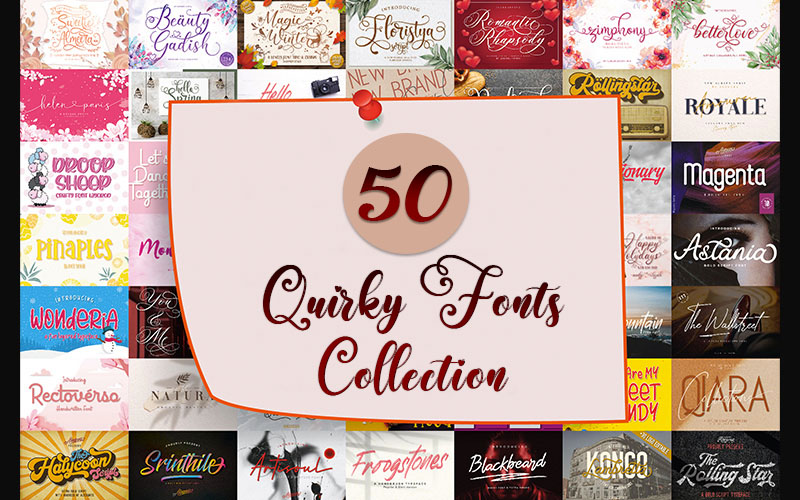
50 Lovable & Playful Fonts!
In search of playful fonts for your projects? Let these 50 Quirky Fonts tell your stories for you.
This fonts bundle includes a varied range of font styles such as calligraphy, signature, brush lettering, kids, fun, display, serif, san serif, font duo, and many more. This quirky collection will convey warmth, playfulness, and the essence of childhood to your designs.
This pack also includes a BONUS – Magic Winter Logo & Doodle Pack making it a perfect pair to this bubbly gem for all your posters, cards, logos, prints, and more!
These fonts will sure put a smile on your face!
Artisoul Signature Font Family
Astania Script Font Family
Beauty Gadish Font Family
Betterlove Font Family
Blackbeard Font Family
Droopsheep Font Family
Fairytails Font Family
Floristya Fonts Font Family
Halycoon Font Family
Magic Winter & Bonus
Froogstones Font Family
Helen Paris Font Family
Lambretta Kongo Font And Bonus
Magenta Family
Magnum Shangrella Font Family
Monitta Script Font Family
Pinaples Font Family
Qiara Duo Font Family
Rectoverso Font Font Family
Romantic Rhapsody Font Family
Royale Amoure Font Duo
Senator Font Family
Sinister Brush Font Family
Srinthile Font Family
Sweetie Almeera Font Family
The Rollingstar Font Family
The Wallstreet Font Family
Twinkle Font Family
Wonderia Font Family
Zimphony Font Family